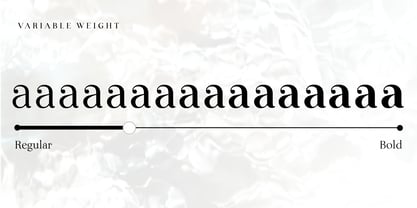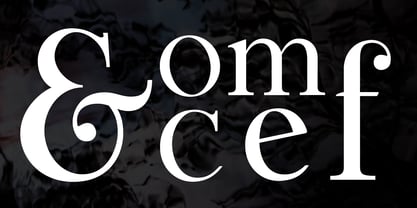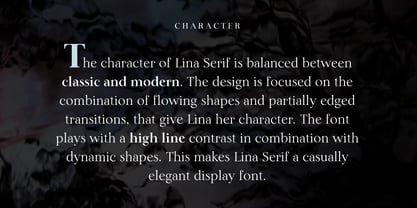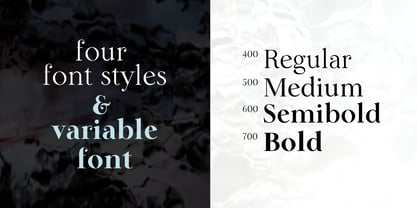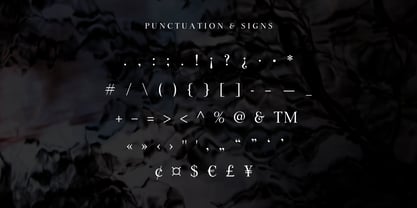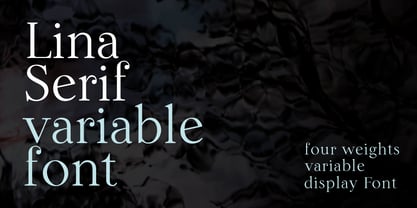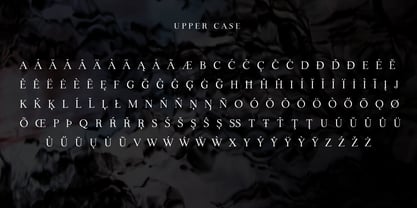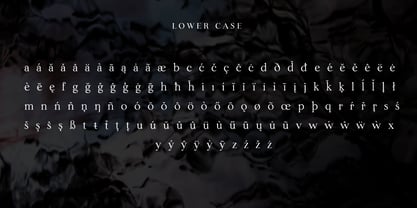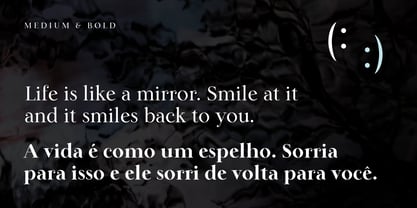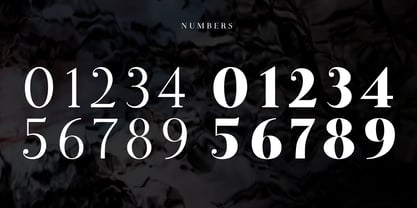
Lina Serif
by Caroline Herr
The Lina Serif Font Family was designed by Caroline Herr and published by Caroline Herr. Lina Serif contains 5 styles and family package options.
Lina Serif is an antiqua balanced between classic and modern. The design focused on the combination of flowing shapes and partially edged transitions, that give Lina her character. The font plays with a high line contrast in combination with dynamic shapes. This makes Lina a casually elegant display font. The terminals remind on floral shapes. Lina gives your design a human, natural touch. Lina Serif is available in 4 weights or as variable font with infinitely variable interpolation of weight.
About Caroline Herr
Caroline Herr is a graphic and type designer living in Frankfurt/Main, Germany. Her passion is to design fonts for unique brandings and illustrations. Caroline works since 2013 as designer and art director in different fields of graphic design like brand, user interface, illustration, packaging, editorial and type design. The fonts Caroline creates, play with the boundaries of readability and illustrative artistic character. She is experimenting with variables to get an exciting design that is fun for viewers.